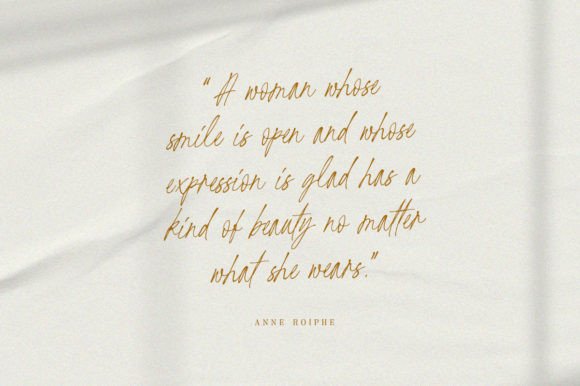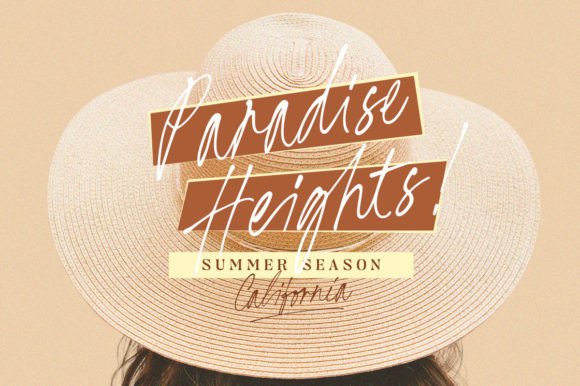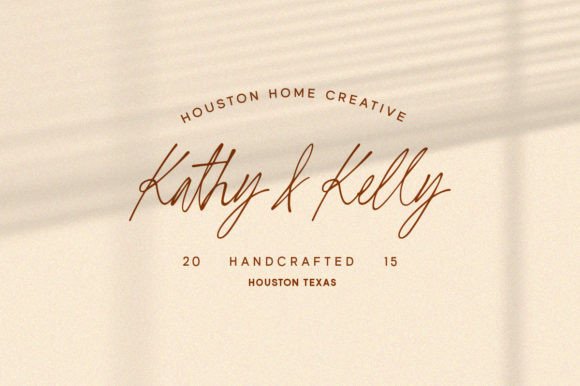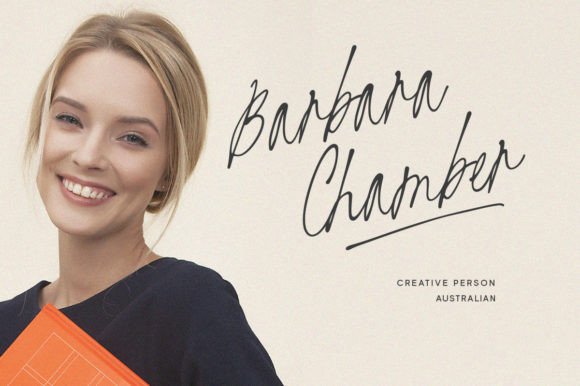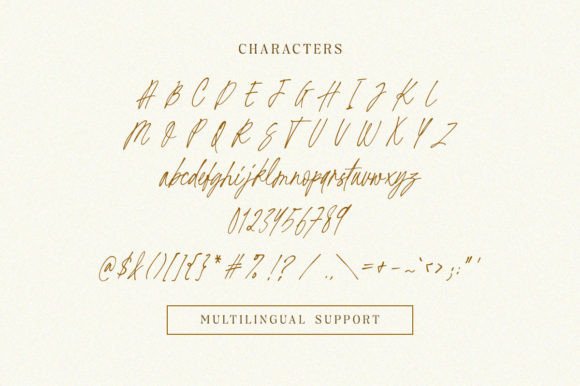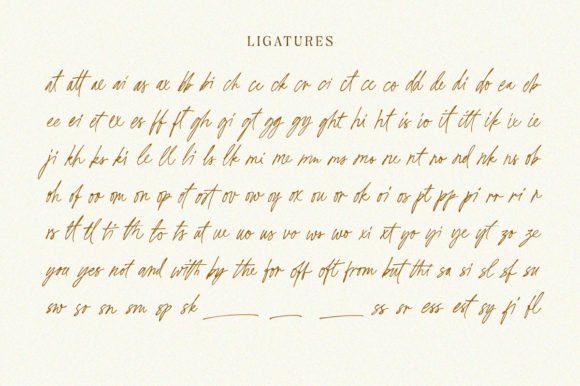
Introducing Glowrious Morning Font: Elevate Your Designs with Elegance
Are you searching for a font that adds a touch of sophistication and elegance to your designs? Look no further than the Glowrious Morning Font. This stunning handwritten font is perfect for designers and crafters who want to create beautiful and memorable projects. With its delicate lines and graceful curves, Glowrious Morning Font is ideal for a variety of applications, from wedding invitations and logos to social media graphics and more.
The Characteristics of Glowrious Morning Font
Glowrious Morning Font is a carefully crafted handwritten font that boasts a range of characteristics that make it truly special. Its delicate lines and graceful curves give it a sense of elegance and sophistication, making it perfect for projects where you want to make a lasting impression. The font is also highly versatile, and can be used for a wide range of applications, from formal wedding invitations to playful social media graphics.
Why Choose Glowrious Morning Font?
There are many reasons why Glowrious Morning Font is an excellent choice for designers and crafters. Here are just a few:
- Elegance and Sophistication: Glowrious Morning Font adds a touch of elegance and sophistication to any project, making it perfect for formal events and applications.
- Versatility: The font is highly versatile and can be used for a wide range of applications, from wedding invitations and logos to social media graphics and more.
- Easy to Use: Glowrious Morning Font is PUA encoded, which means that you can access all delightful glyphs and swashes effortlessly.
- Unique and Memorable: The font’s unique and memorable design makes it perfect for projects where you want to stand out from the crowd.
Applications for Glowrious Morning Font
Glowrious Morning Font is perfect for a wide range of applications, including:
- Wedding Invitations: The font’s elegance and sophistication make it perfect for formal wedding invitations and other wedding-related materials.
- Logos: Glowrious Morning Font is ideal for logos and branding materials where you want to make a lasting impression.
- Social Media Graphics: The font’s playful and elegant design makes it perfect for social media graphics, including Facebook posts, Instagram stories, and more.
- Stationery and Paper Crafts: Glowrious Morning Font is perfect for stationery and paper crafts, including greeting cards, gift tags, and more.
Tips for Using Glowrious Morning Font
Here are a few tips for using Glowrious Morning Font:
- Experiment with Different Sizes and Colors: The font looks great in a variety of sizes and colors, so don’t be afraid to experiment and find the perfect combination for your project.
- Pair with Other Fonts: Glowrious Morning Font pairs well with other fonts, so try combining it with a sans-serif font for a unique and interesting look.
- Use the Swashes and Glyphs: The font’s swashes and glyphs are a great way to add extra elegance and sophistication to your project.
Glowrious Morning Font is a stunning handwritten font that adds a touch of elegance and sophistication to any project. With its delicate lines and graceful curves, it’s perfect for a wide range of applications, from wedding invitations and logos to social media graphics and more. Whether you’re a designer or crafter, Glowrious Morning Font is a great choice for anyone looking to create beautiful and memorable projects.